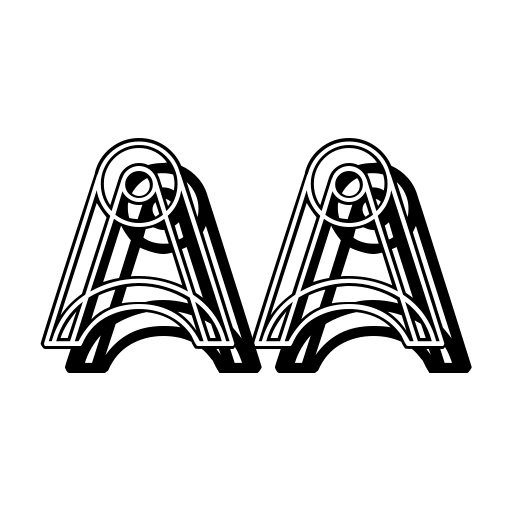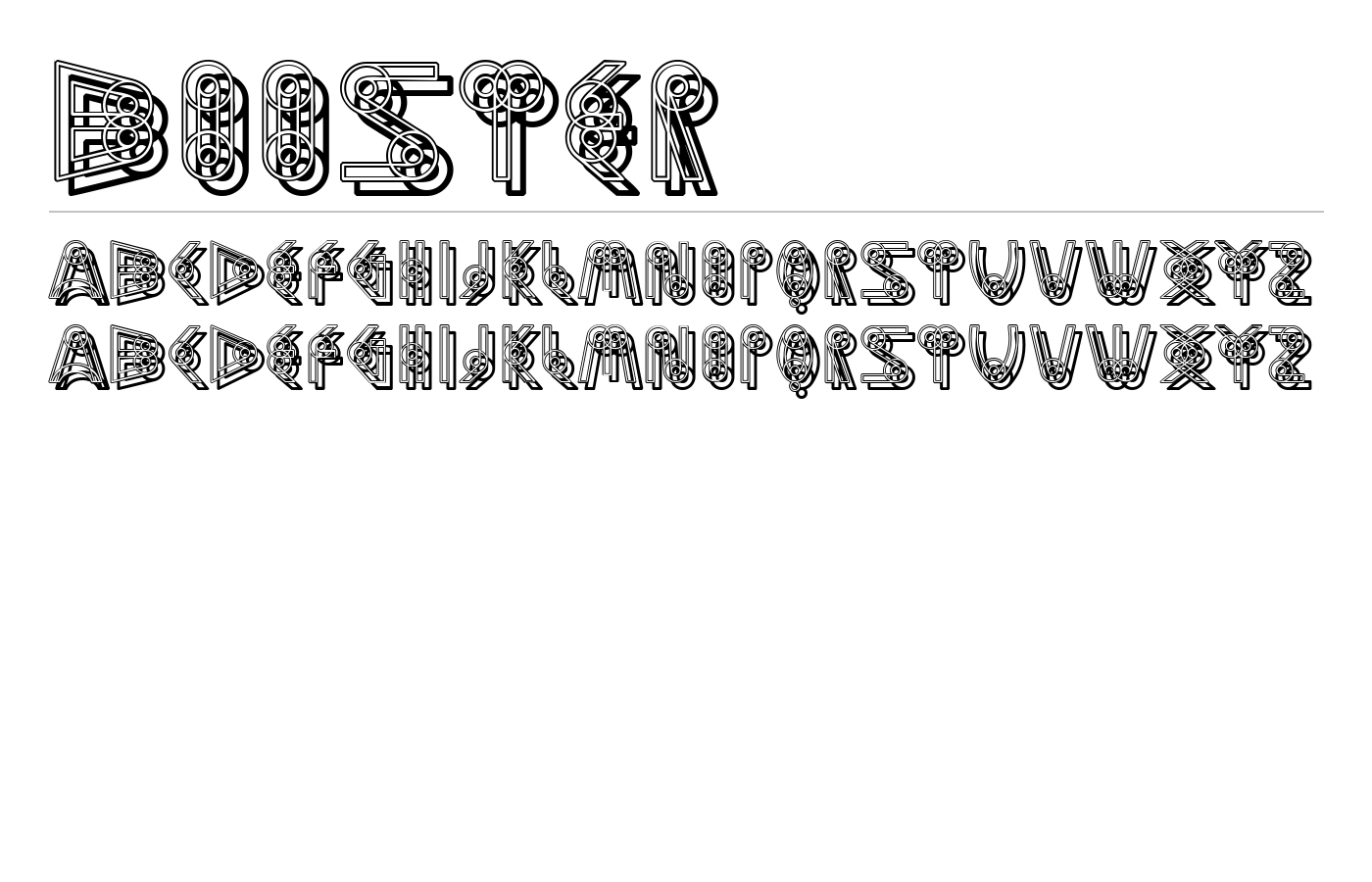
Booster is a unique, decorative sans serif font featuring an eye-catching multi-layered, geometric design that combines bold lines with circular and linear elements. Its playful complexity and vibrant structure make it ideal for creative headlines, logos, and posters where a futuristic yet artistic vibe is desired. This font works best when used in display settings to add a distinctive, modern touch to branding and editorial projects.
Booster Font
About Booster Font
| Font family | Booster Font |